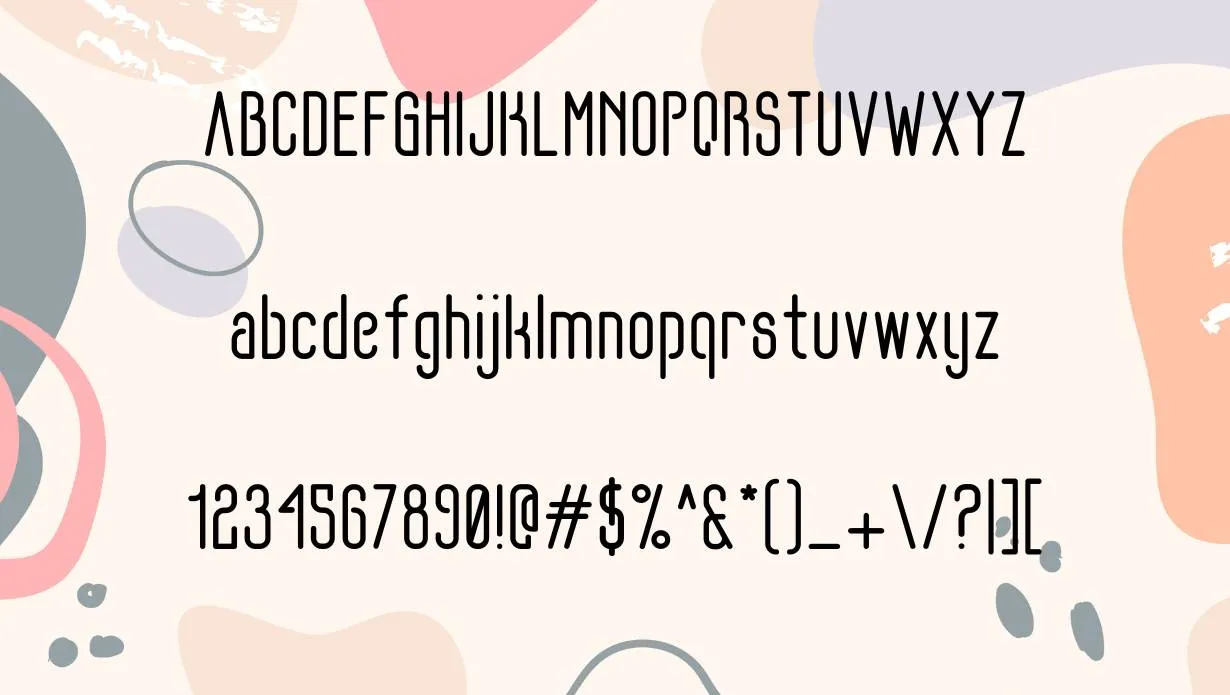
The Synthesia font has a futuristic and tech-savvy appearance. It feels like a text from the future. With Adobe Photoshop, it’s perfect for designing high-tech graphics or sci-fi elements. In CSS, it can give a futuristic edge to web design.
In Canva, this font could elevate technology-themed presentations or modern-looking social media posts.